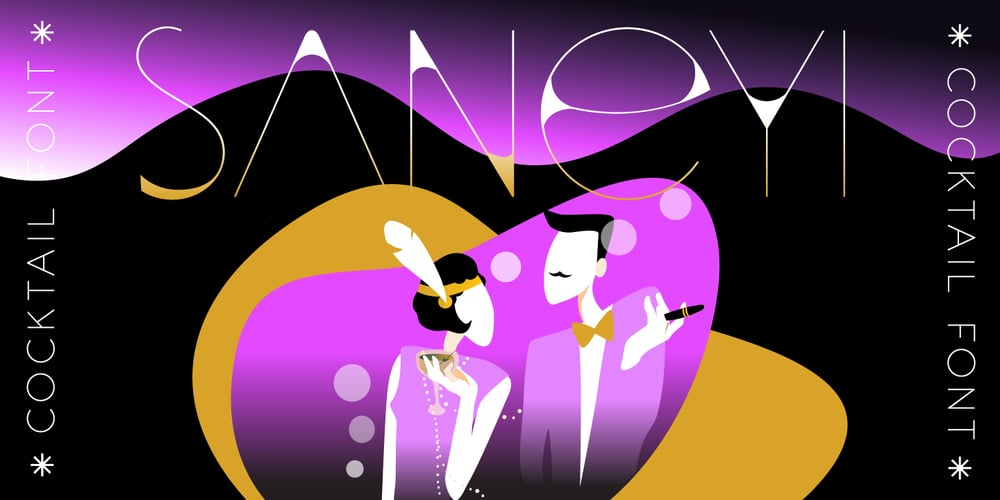
Saneyi Font Family was designed by Andrii Shevchyk and published by Andfonts. Saneyi contains 1 styles and family package options. Saneyi is a fun, rich and emotional display font. This font is perfect for parties, birthdays, celebrations, names. Use it for your designs and explore its endless possibilities. It can easily be matched to an incredibly large set of projects, so add it to your creative ideas and notice how it makes them stand out!